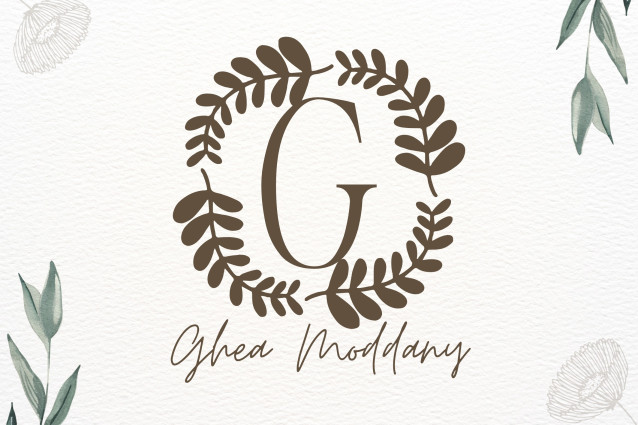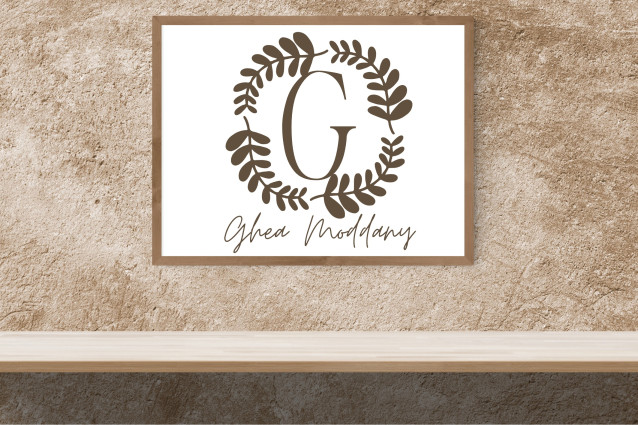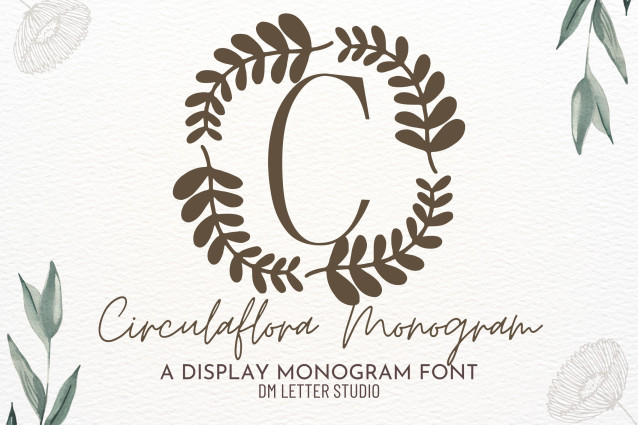
Circulaflora Monogram Font
Circulaflora Monogram Font is a modern botanical monogram font featuring uppercase letters encircled by elegant floral rings. Designed with balance and sophistication, this font adds natural charm to personalized branding, wedding materials, packaging, and seasonal stationery. Whether you’re crafting a luxe logo or customizing a heartfelt gift, Circulaflora brings clean lines and organic beauty together in one stylish package.